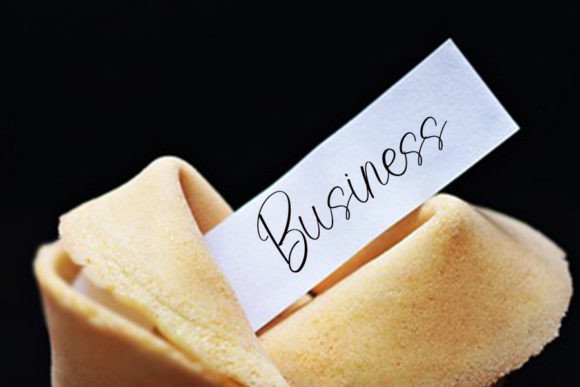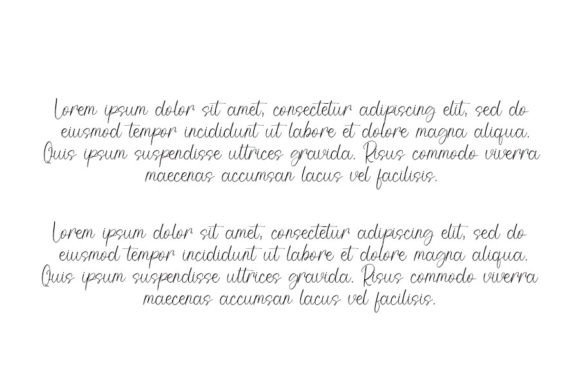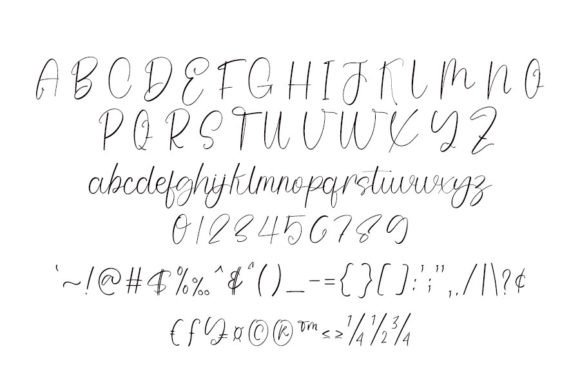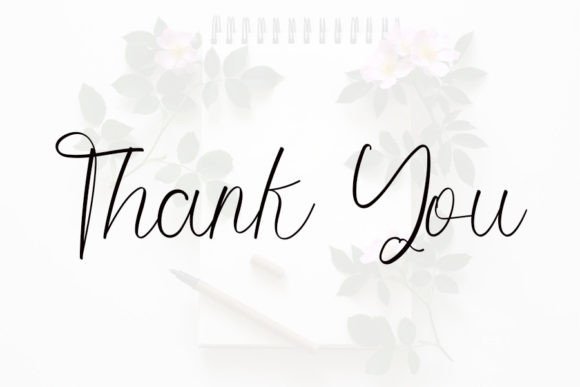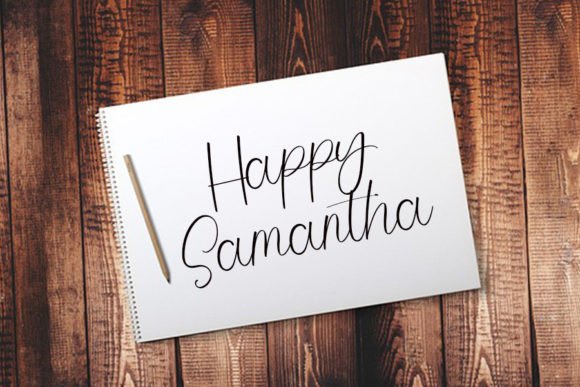
Writlle Font
What Is Writlle Font?
Writlle Font is a trendy handwritten typeface inspired by timeless classic calligraphy. Each letter features smooth curves, clean lines, and graceful details that create an elegant, contemporary look. Because of its refined style, this font is perfect for designs that need sophistication and charm.
You will see how effortlessly Writlle transforms any project with its polished character.
Writlle is a versatile font you can use in many design contexts. For example, it’s ideal for logos and branding. The handcrafted script style makes any brand look professional and memorable.
In addition, it works beautifully for wedding invitations and event stationery. Whether you are designing for romantic occasions or upscale celebrations, Writlle adds an elegant, personal touch.
You can also use it for social media graphics, quotes, and blog headers. The stylish flow helps your content stand out with ease.
When you design packaging and product labels, Writlle brings a high-end feel that instantly elevates the presentation.
Moreover, it’s perfect for posters, business cards, and personal projects. Every detail will look cohesive and refined with this font.
Why Should You Choose Writlle Font?
There are many reasons to consider Writlle for your next design. First, it’s easy to read even with its sophisticated script details. Whether you use large headlines or smaller captions, every letter stays clear and beautiful.
Also, Writlle pairs perfectly with minimalist serif or sans-serif fonts. This makes it easy to build balanced, modern layouts effortlessly.
Designers appreciate that it looks polished right out of the box, saving time while delivering professional results.
Writlle Font adds sophistication and elegance to every project. For example, when you want your designs to feel classic yet modern, this font makes it simple.
Even minimalist layouts look more engaging with Writlle’s smooth, flowing strokes. Whether you create branding, invitations, or digital content, your work will stand out.
Using a premium handwritten script also shows your attention to detail and commitment to quality. This builds trust with clients and makes your designs unforgettable.
Writlle Font is more than just a typeface—it’s a creative tool that helps you share ideas with clarity and beauty. From logos and packaging to invitations and social posts, this font adapts easily and leaves a lasting impression.